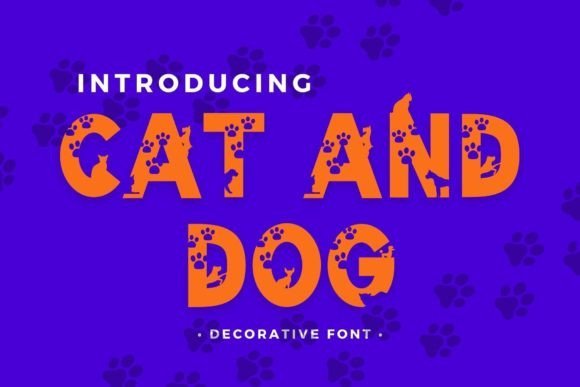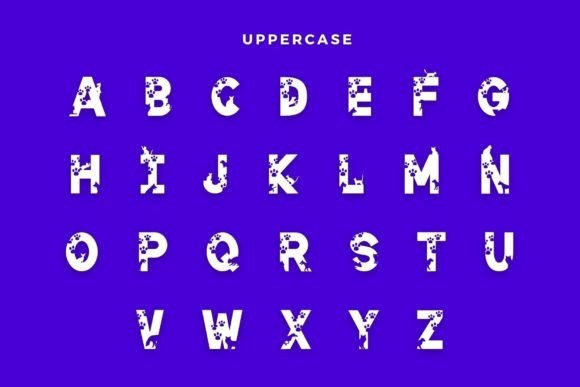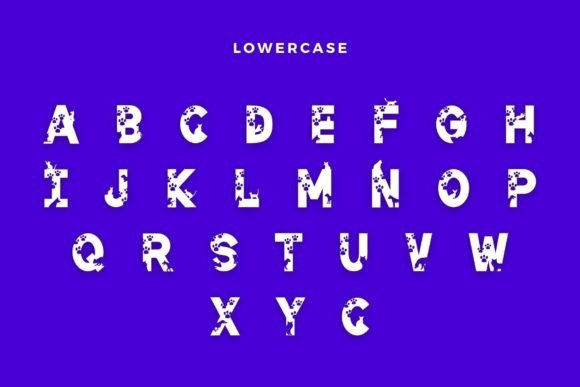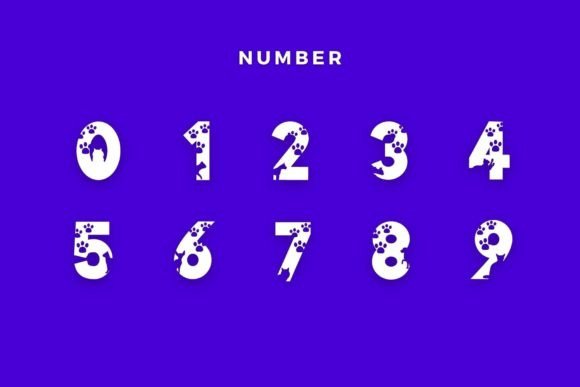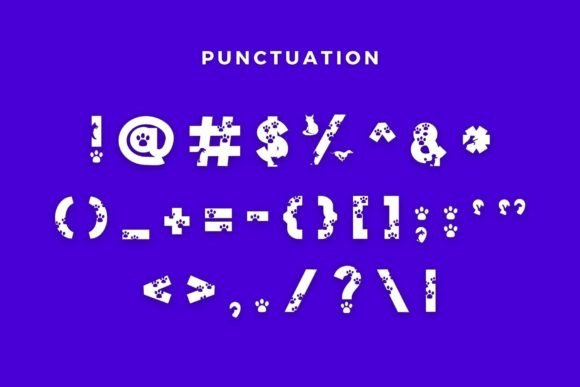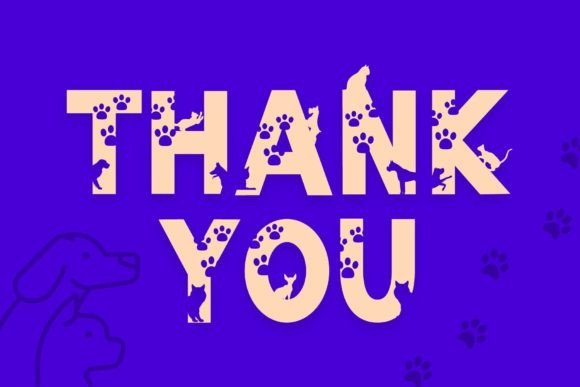
The Purr-fect Addition to Your Designs
You know that moment when you’re working on a project, and you just can’t seem to find the right font to capture the playful vibe you’re going for? That’s when I fell in love with the Cat and Dog Font – it’s the perfect solution to add a dash of whimsy to your designs.
This adorable decorative font is more than just a cute face; it embodies the essence of playfulness and authenticity. Whether you’re working on a blog post, creating a logo, or designing invitations, the Cat and Dog Font is the perfect choice. Its versatility makes it a valuable asset for designers, allowing you to add a personal touch to any project.
Cat and Dog Font Key Features
- Unique Characteristic: The Cat and Dog Font features a unique blend of playful and whimsical designs, making it ideal for children’s books, cartoons, and other creative projects.
Designer Review: Cat and Dog Font
Overall, I’d say the Cat and Dog Font has its quirks, but it’s not without its charm. Let’s dive in and explore what works well.
- Unique and playful design: The font’s whimsical nature makes it perfect for children’s books, pet-related brands, or any project that needs a touch of fun.
- Good for short text: The font’s playful nature makes it work well for short sentences or headlines, where the emphasis is on the visuals rather than readability.
- Customization options: The font comes with various styles and weights, allowing designers to mix and match to achieve the desired look.
However, there are some limitations that may impact its usability in certain projects.
- Readability issues: The font’s playful design can make it difficult to read for extended periods or in large blocks of text.
- Lack of serif options: While the font has various styles and weights, it would be nice to have serif options to provide better readability.
- Not suitable for body text: Due to its playful nature, the font is not ideal for body text or large amounts of content.
Overall, I think the Cat and Dog Font is a great addition to any designer’s toolkit, but it’s essential to use it judiciously and in the right context.
The “Cat and Dog Font” is ideal for creating playful and whimsical designs, such as:
- Party invitations